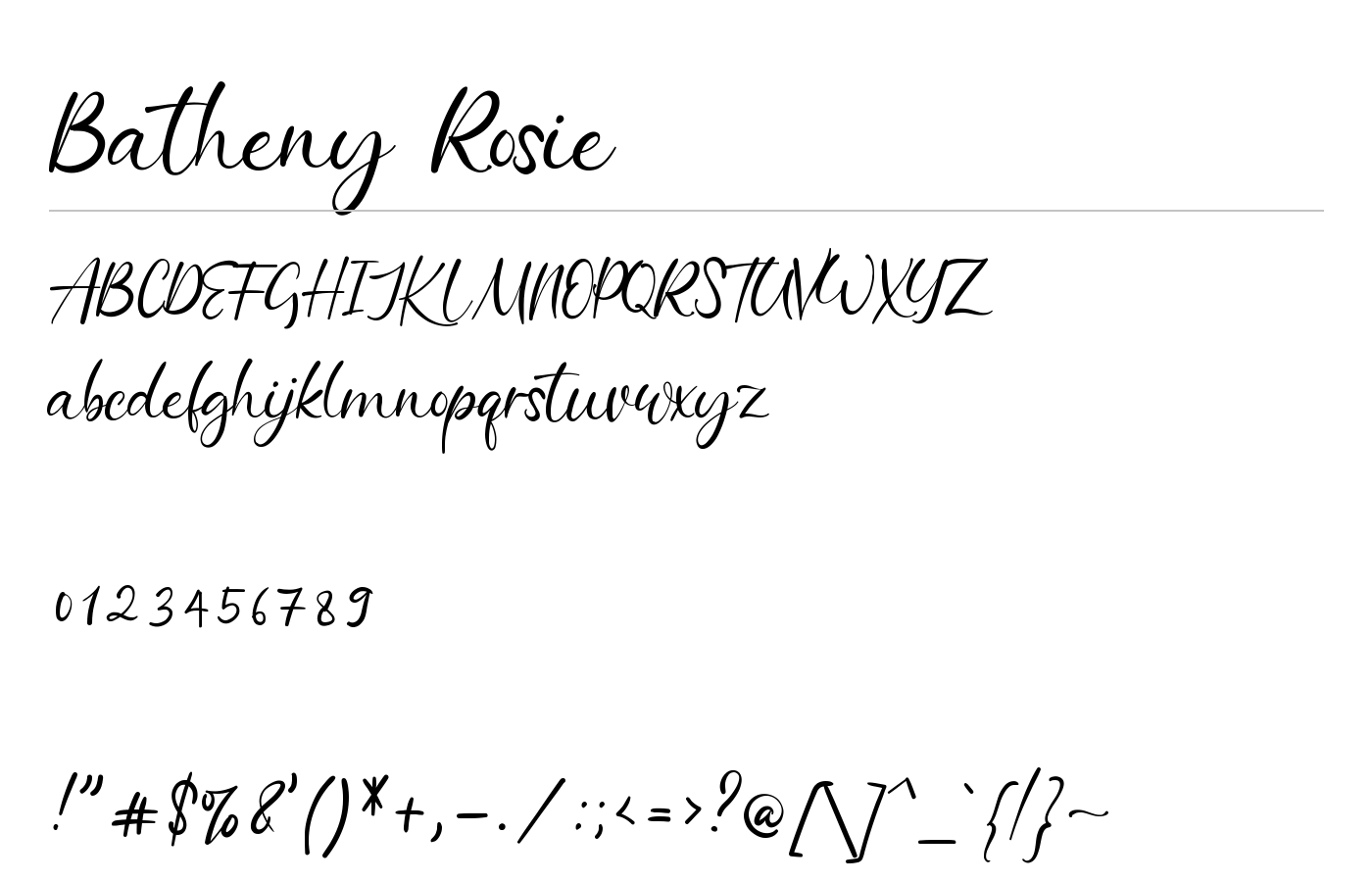
Batheny Rosie is a delicate, handwritten script font that features smooth, flowing lines with a slender and elegant appearance. Its natural, casual style makes it perfect for personal branding, greeting cards, and creative projects that require a friendly yet refined touch. This font works well for adding a warm, approachable character to designs, especially in invitations, logos, and social media graphics.
Batheny Rosie Font
About Batheny Rosie Font